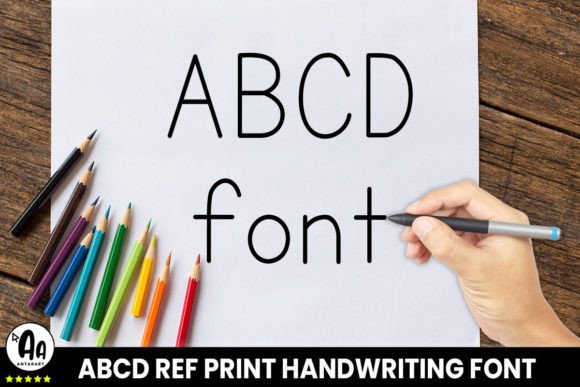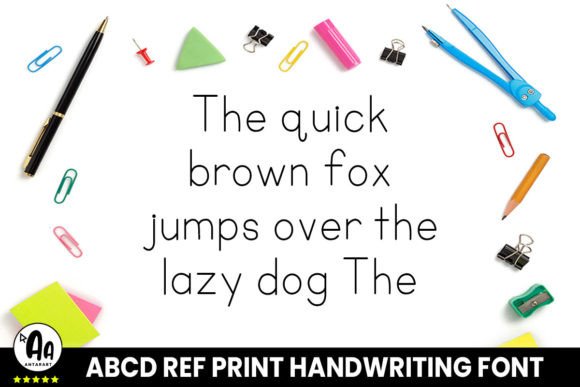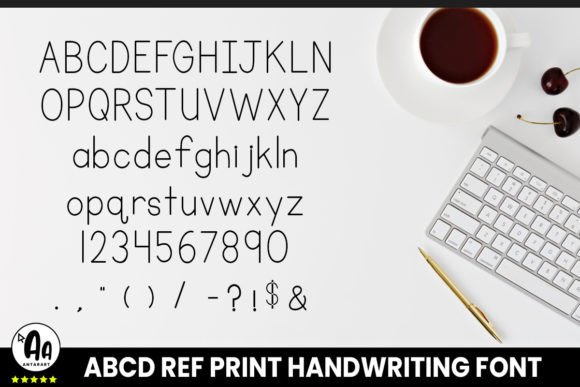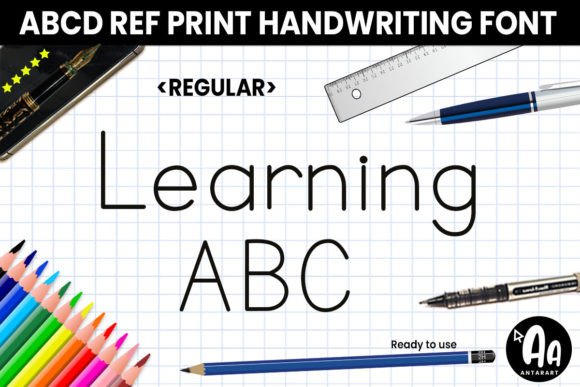
Introducing Abcd Ref Regular Font: A Fun and Interactive Learning Tool
Are you a designer, teacher, or parent looking for a creative way to teach the print alphabet to your students or kids? Look no further than the Abcd Ref Regular Font, part of the ABCD Ref font family. This simple and practical display font is based on the D’Nealian Method US school and offers a unique opportunity to create engaging and interactive learning materials.
What is Abcd Ref Regular Font?
Abcd Ref Regular Font is a display font designed specifically for educational purposes. Its primary goal is to make learning the print alphabet a fun and enjoyable experience for students. The font is based on the D’Nealian Method, a widely used teaching approach in US schools. This method emphasizes the importance of handwriting and provides a systematic approach to teaching letter formation.
Key Features of Abcd Ref Regular Font
- Based on the D’Nealian Method: The font is designed to align with the D’Nealian Method, making it an excellent resource for teachers and educators who follow this approach.
- Simple and Practical: The font’s simplicity and practicality make it easy to read and use, even for young students.
- Display Font: Abcd Ref Regular Font is a display font, making it perfect for creating eye-catching worksheets, posters, and other educational materials.
- Create Thousands of Worksheets: With this font, you can create a wide range of worksheets, from simple alphabet charts to more complex activities and games.
Abcd Ref Regular Font offers numerous benefits for designers and crafters who work with educational materials. Some of the advantages include:
- Unique and Engaging Designs: The font’s playful and interactive nature allows designers to create unique and engaging educational materials that capture students’ attention.
- Customization Options: With Abcd Ref Regular Font, designers can create a wide range of materials, from worksheets and posters to activity sheets and games.
- Time-Saving: The font’s versatility and ease of use save designers time and effort, allowing them to focus on creating high-quality educational content.
How to Use Abcd Ref Regular Font
Using Abcd Ref Regular Font is straightforward and easy. Here are some ideas to get you started:
- Create Alphabet Charts: Design colorful alphabet charts to display in classrooms or homes.
- Make Worksheets: Create engaging worksheets for students to practice writing and reading.
- Design Activity Sheets: Develop activity sheets, such as word searches, crosswords, and mazes, to make learning fun.
- Develop Educational Games: Create educational games, such as matching games and flashcards, to help students learn and retain information.
Abcd Ref Regular Font is an excellent resource for designers, teachers, and parents who want to create engaging and interactive educational materials. Its simplicity, practicality, and versatility make it an ideal choice for teaching the print alphabet and promoting learning. With this font, you can create thousands of worksheets, posters, and activity sheets that make learning fun and enjoyable for students of all ages.